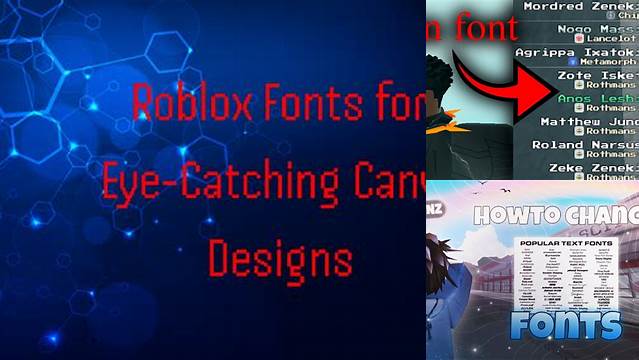
Adding Unique Fonts In Roblox: A Complete Guide
Hey guys! Ever wondered how to make your Roblox games pop with cool, custom fonts? You're in the right place! Adding different fonts to Roblox can seriously level up your game's visual appeal and make it stand out from the crowd. This guide will walk you through everything you need to know, from the basics to some more advanced techniques. Let's dive in and get those fonts working! This comprehensive guide will explain how to add different fonts to Roblox, offering a step-by-step approach that is easy to follow, even if you're just starting out with game development.
H2: Understanding Roblox Font Limitations and Possibilities
Before we jump into adding fonts, let's talk about what Roblox offers and what it doesn't. Roblox has a built-in font system, but it's somewhat limited in terms of variety. You've got your standard fonts, which are functional but can sometimes feel a bit… bland. The good news is, Roblox does allow you to import custom fonts! This opens up a whole world of creative possibilities. The catch? It's not always straightforward. Understanding Roblox's limitations is crucial for setting realistic expectations. You can't just upload any font file and expect it to work seamlessly. You need to convert the font into a format that Roblox recognizes and then implement it correctly within your game. The possibilities are vast. Imagine a game with futuristic fonts, medieval-style scripts, or quirky, cartoonish text. All of this is achievable by adding different fonts to your Roblox game. You could make your game stand out from the competition by giving it a unique visual style. One of the biggest challenges when adding fonts to Roblox is ensuring that the font renders correctly on different devices. This means the font should look good on computers, tablets, and mobile phones. Testing your game on various platforms is important to ensure that your chosen fonts display as intended. Another critical factor is performance. Using custom fonts can impact your game’s performance, particularly if you use many or the font files are large. It's important to optimize your font usage to minimize any negative effects on gameplay. Therefore, how to add different fonts to Roblox requires a deep understanding of the engine's inner workings and how to work around the limits.
H3: Choosing the Right Font for Your Roblox Game
Choosing the right font is more than just picking something that looks cool; it's about enhancing the user experience and reinforcing your game's theme. Consider the genre of your game. Is it a fantasy RPG, a futuristic shooter, or a casual building game? Each genre calls for a different font style. For example, a fantasy game might use a more ornate, calligraphic font, while a sci-fi game might opt for a sleek, modern font. How to add different fonts to Roblox starts with making sure you're using the right font. Readability is key. Ensure your chosen font is clear and easy to read, even at smaller sizes. If players can't quickly understand the text, they'll get frustrated. Test your font on various devices and screen sizes to make sure it remains legible. Think about your game's target audience. Are you targeting younger players, or are you going for a more mature audience? The font you choose should be appropriate for the age group you're trying to reach. Consider the overall aesthetic of your game. Does the font fit in with the game's art style, user interface, and general visual theme? The font should complement the other visual elements. Experiment with different fonts. Try out several different fonts and see which ones work best within your game. Test them out and check how they look in action. Avoid fonts that are too complex or overly stylized, as these can be difficult to read and may distract from the gameplay. Consider the emotional impact of the font. Fonts can evoke different emotions, from excitement to calmness. Choose a font that supports your game's intended mood. Choose a font with appropriate licensing for your intended use. Some fonts are free for personal use only, while others require commercial licenses. Adhere to the terms of the font license to avoid legal issues. The right font will create a compelling experience, making your game more appealing. Understanding these factors will greatly benefit how to add different fonts to Roblox.